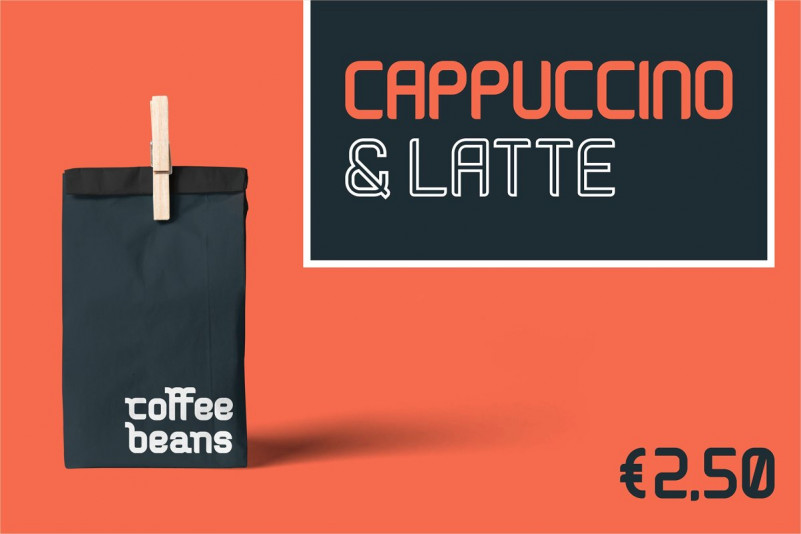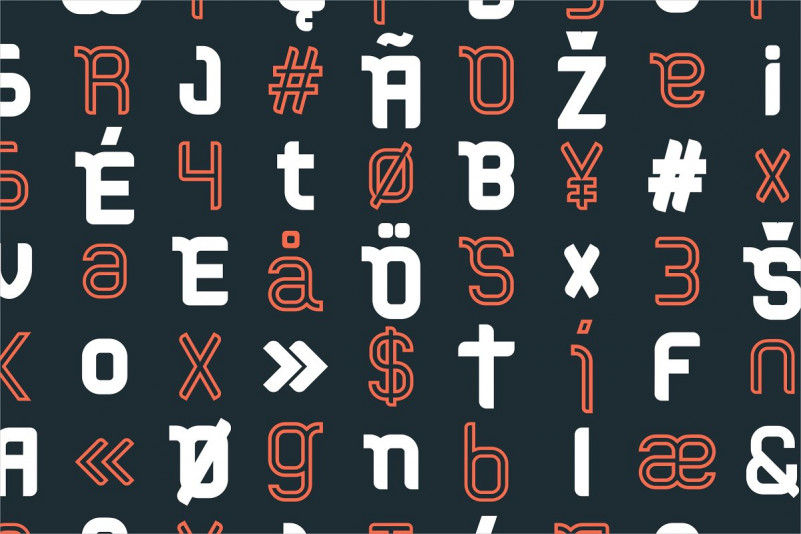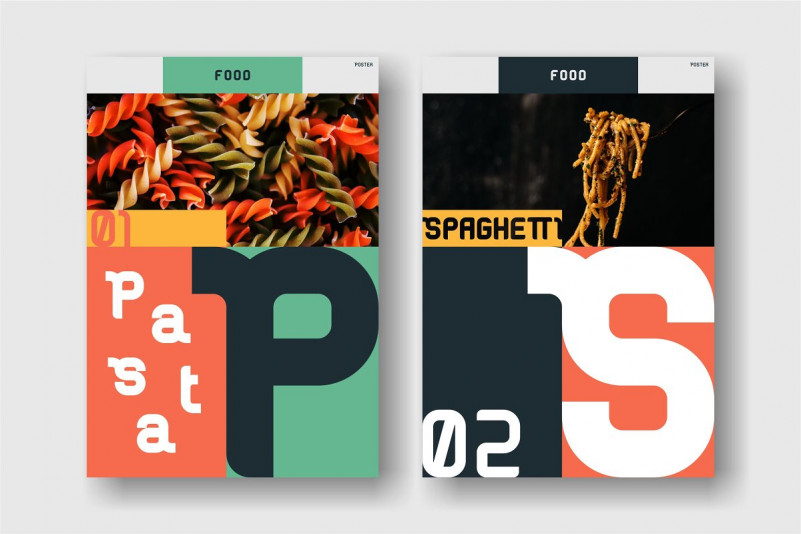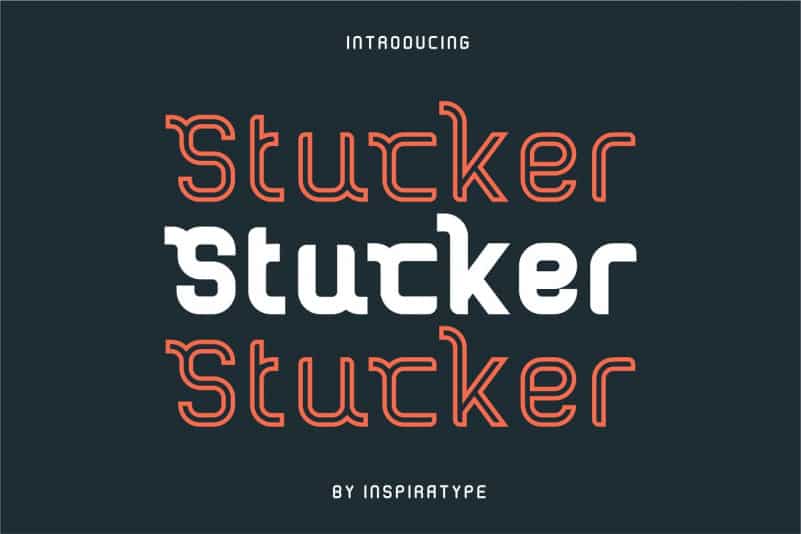
Stucker Display Font
Thank you for checking Stucker Font! Make your own creation with Stucker into magazine cover, poster, cards, wedding invitation, advertisements, quotes and more. It is designed and shared by Inspiratype. “Stucker” is a font display that is made by hand, inspired by classic posters. Stucker Display Font with uppercase, lowercase, numerals, punctuations and so many variations on each character include OpenType alternates, common ligatures and also additional swash to let you customize your designs. Perfect to use for Logotype, Letterhead, Poster, Apparel Design, Label and etc.